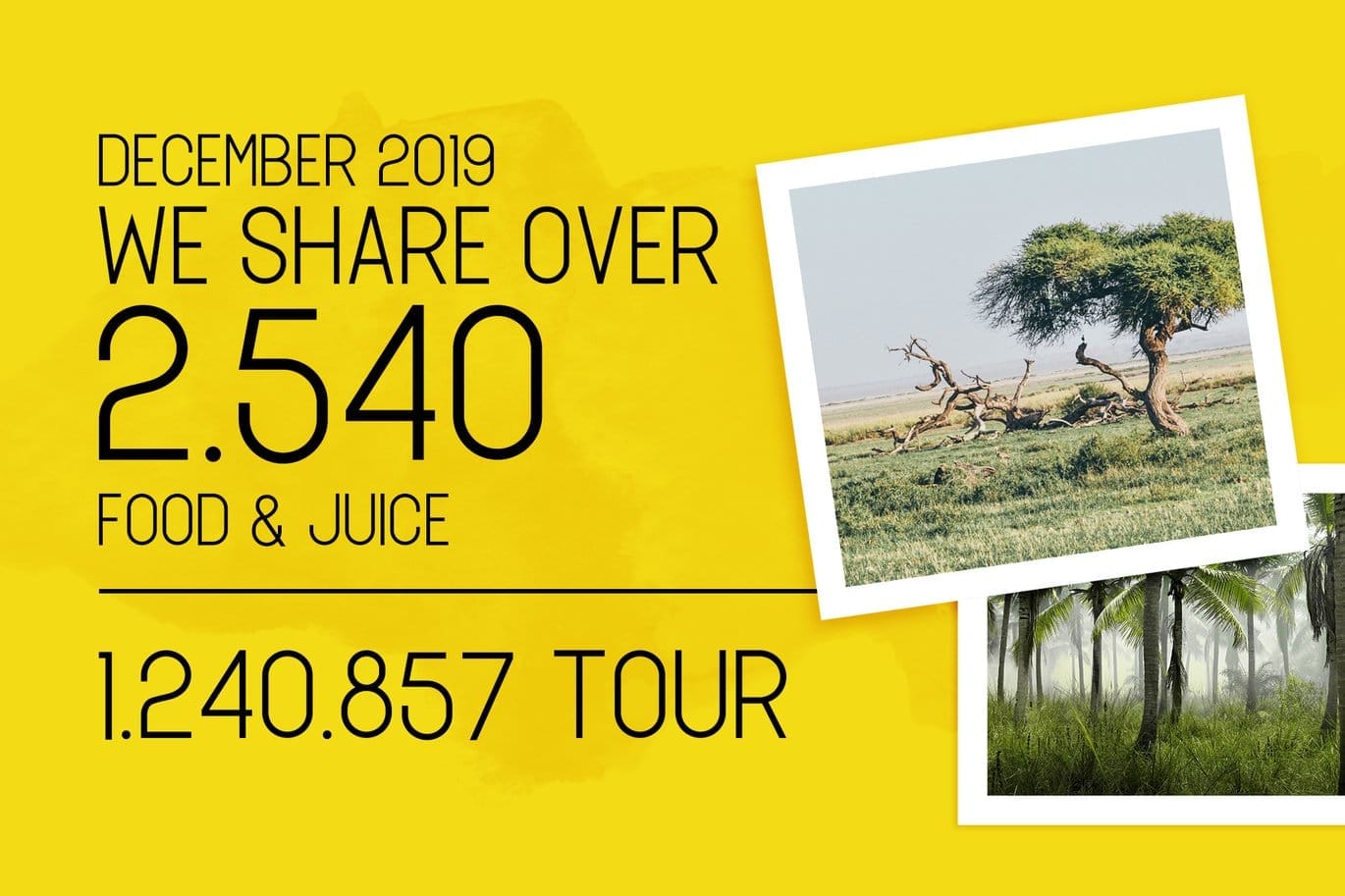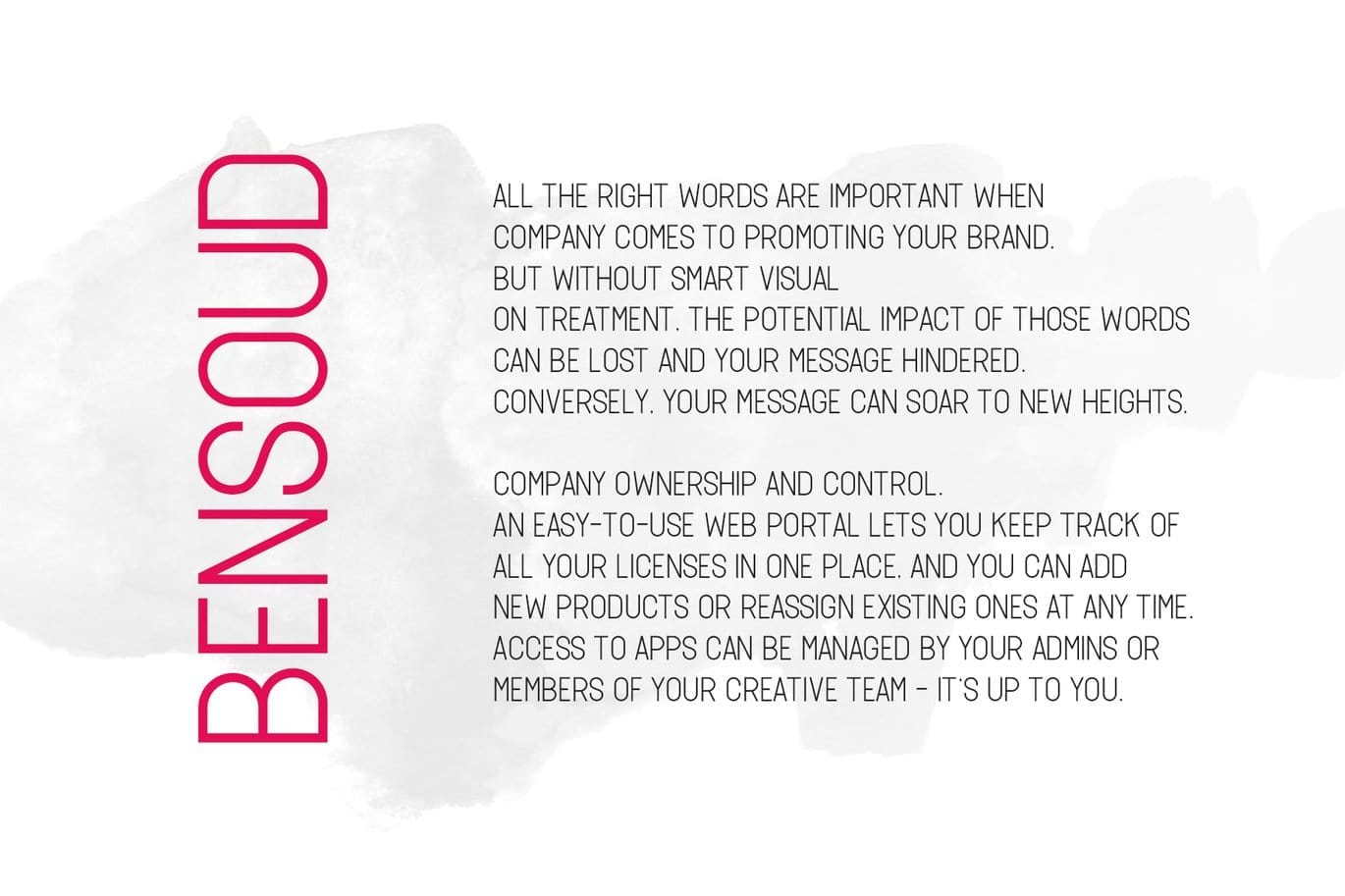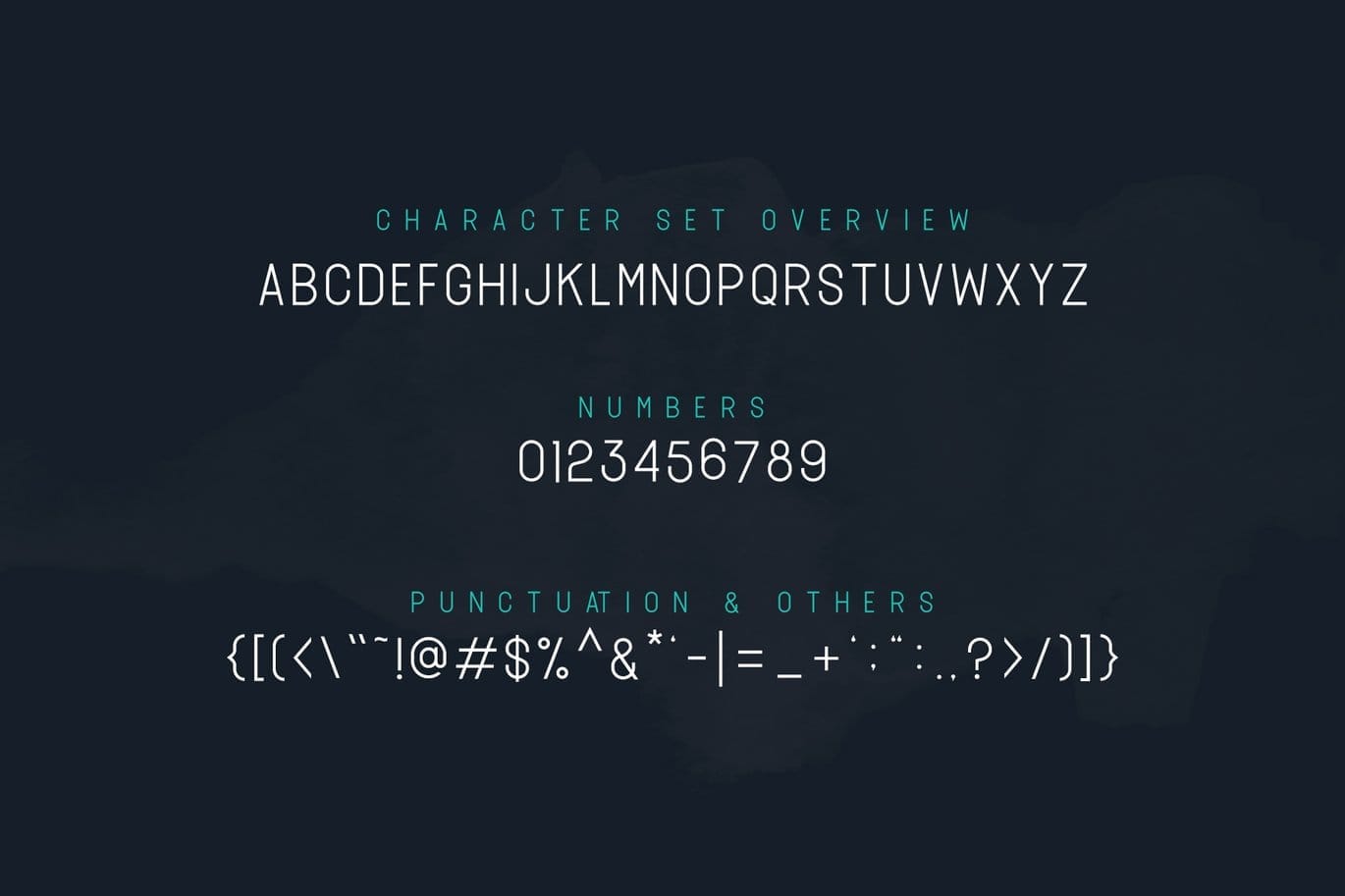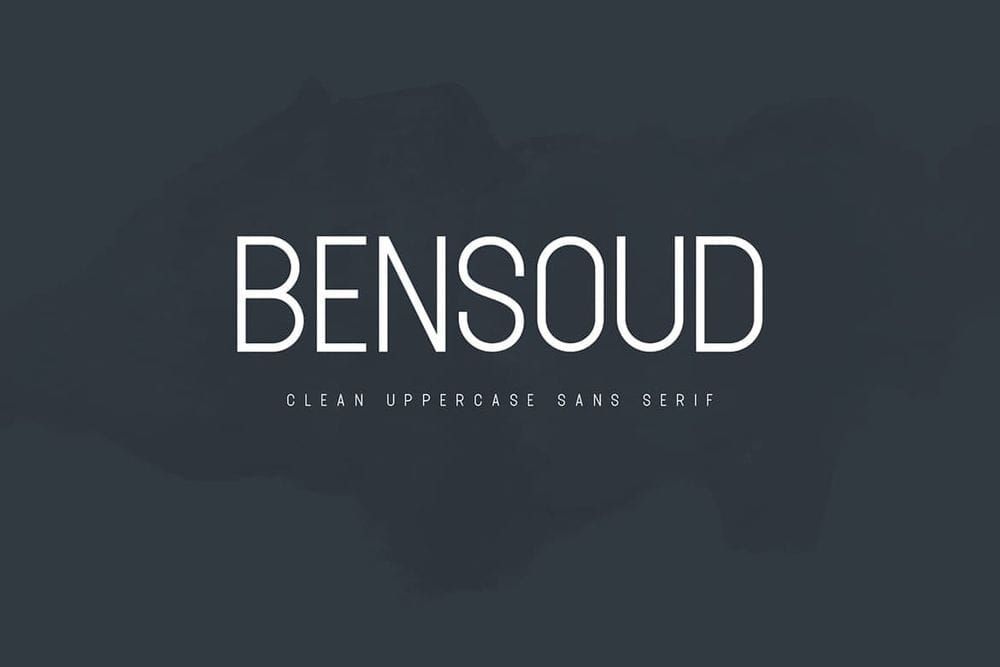
Bensoud Font
Please Note this font only uppercase.
Bensoud font is clean san serif. Perfect for any print product such a poster, flayer, t-shirt,etc. this font is match to create your branding product or personal project.